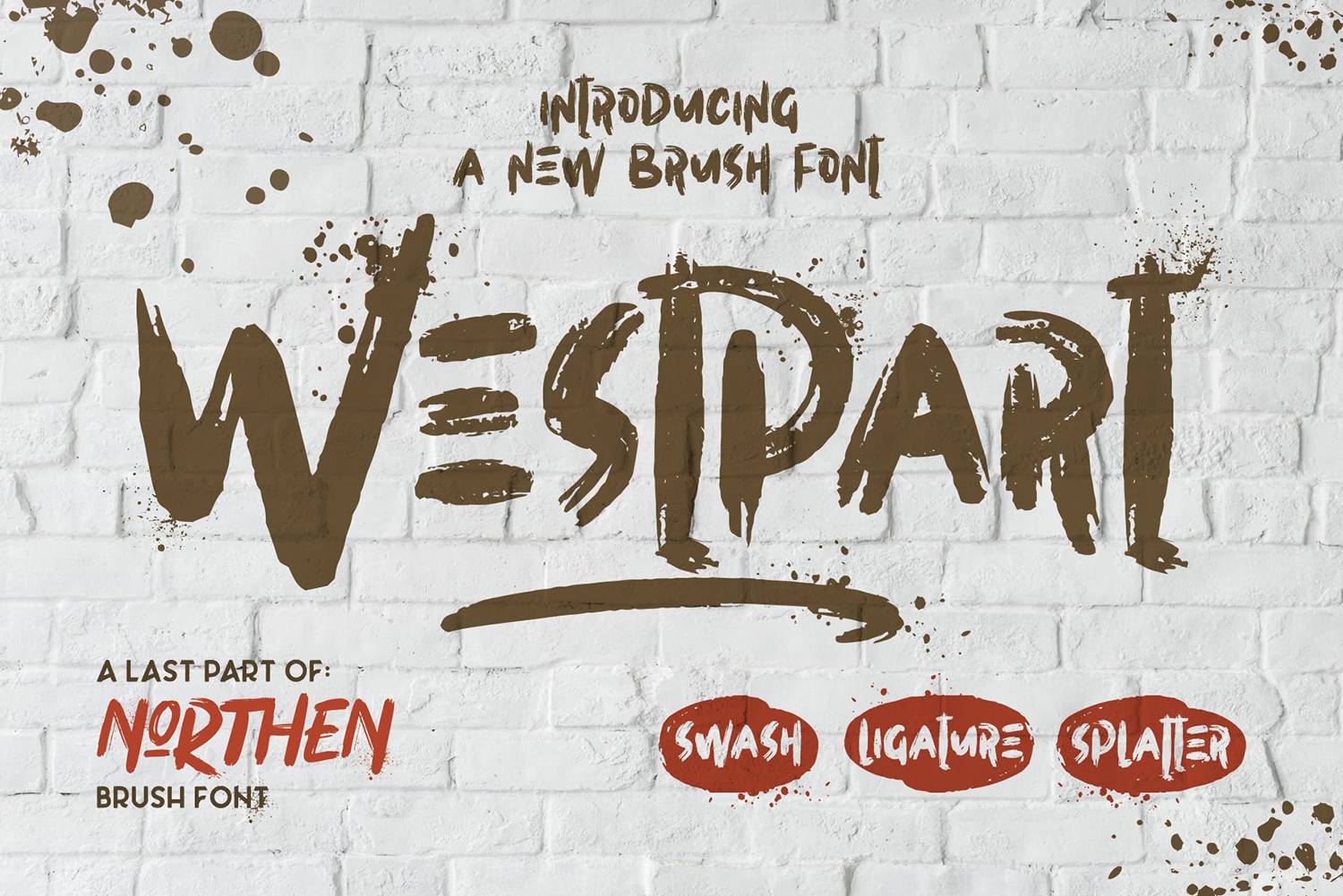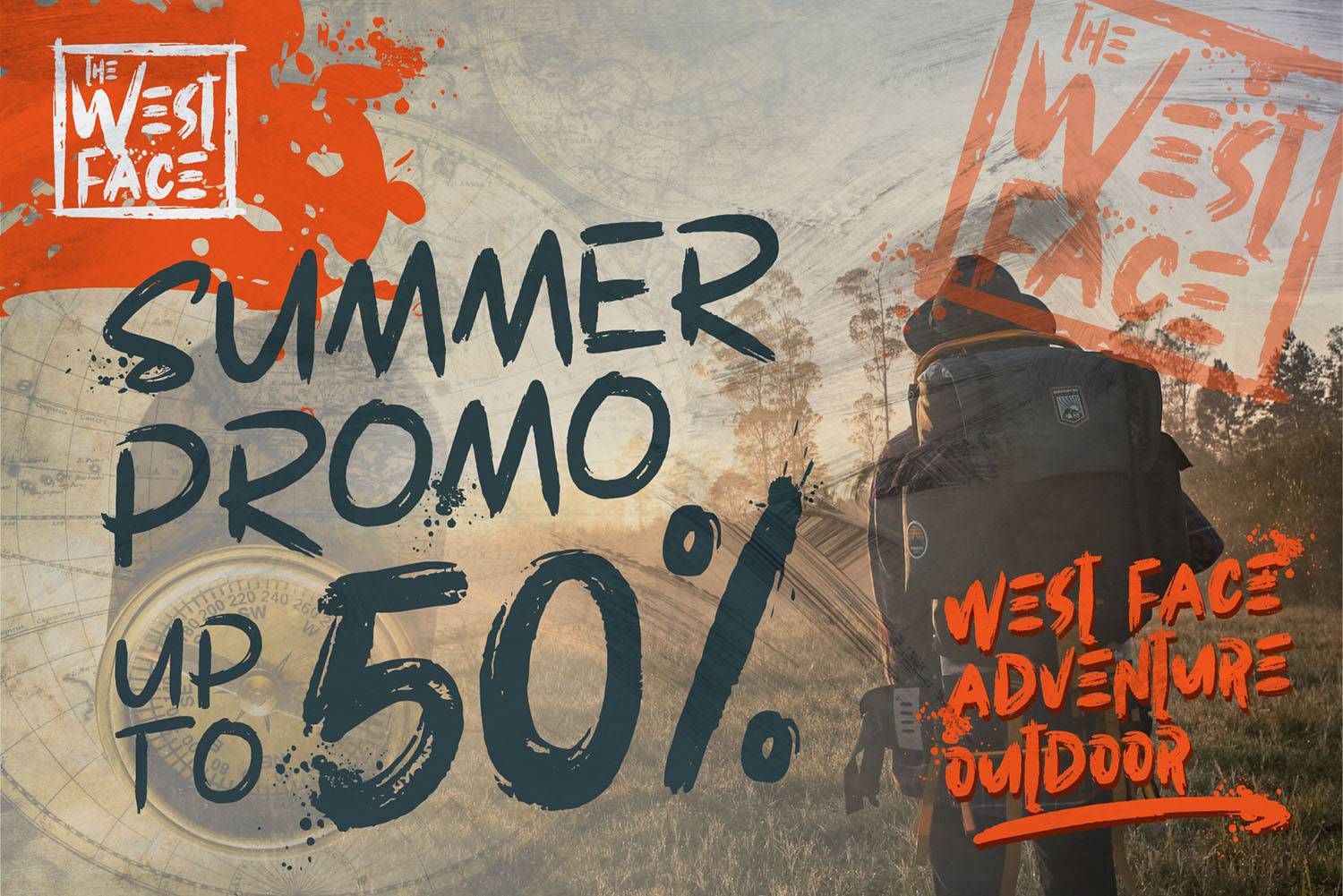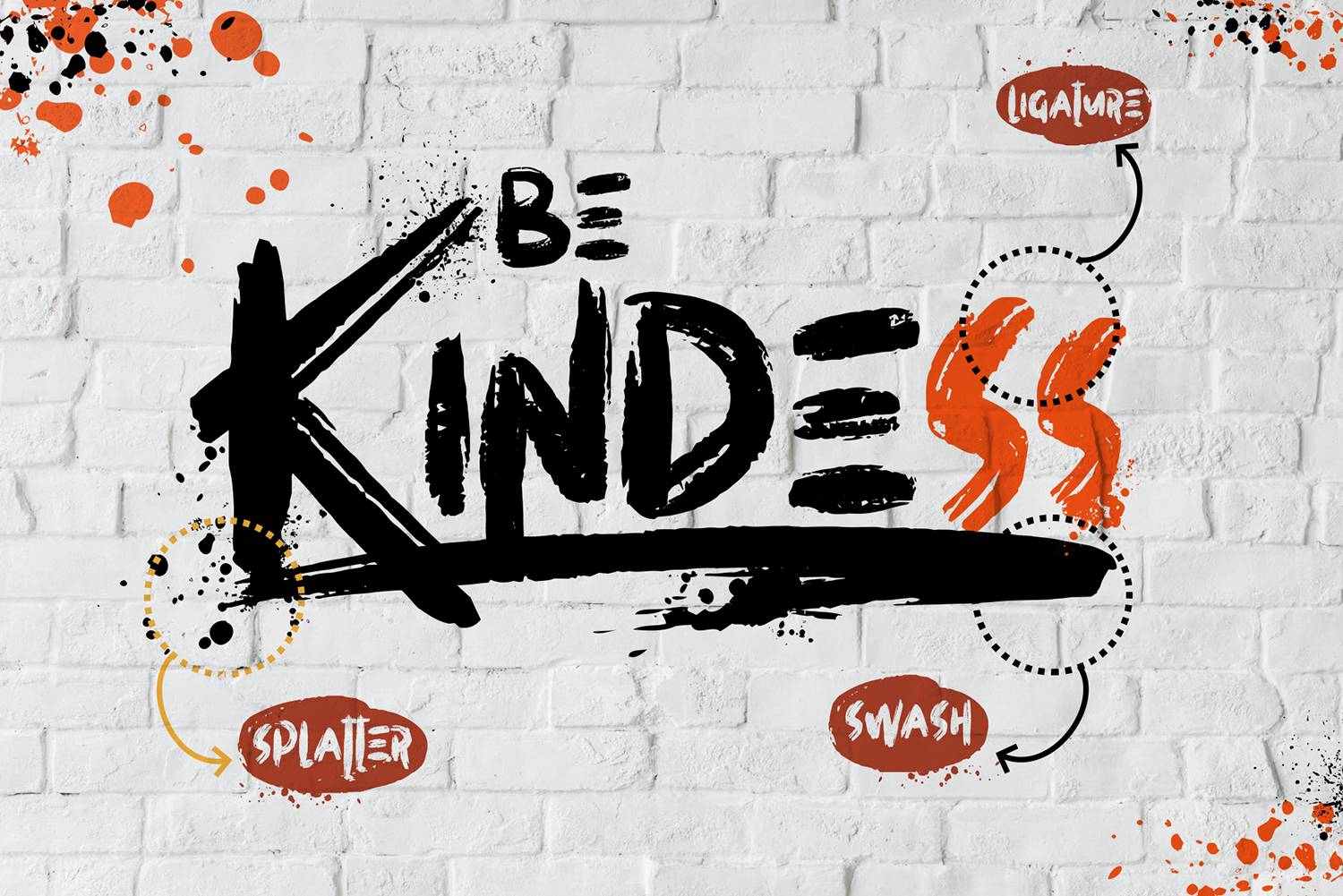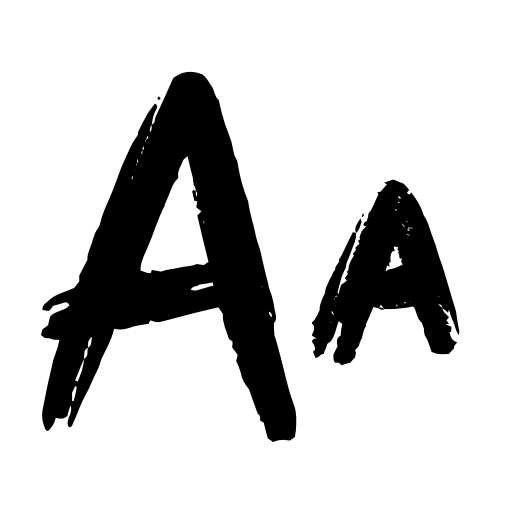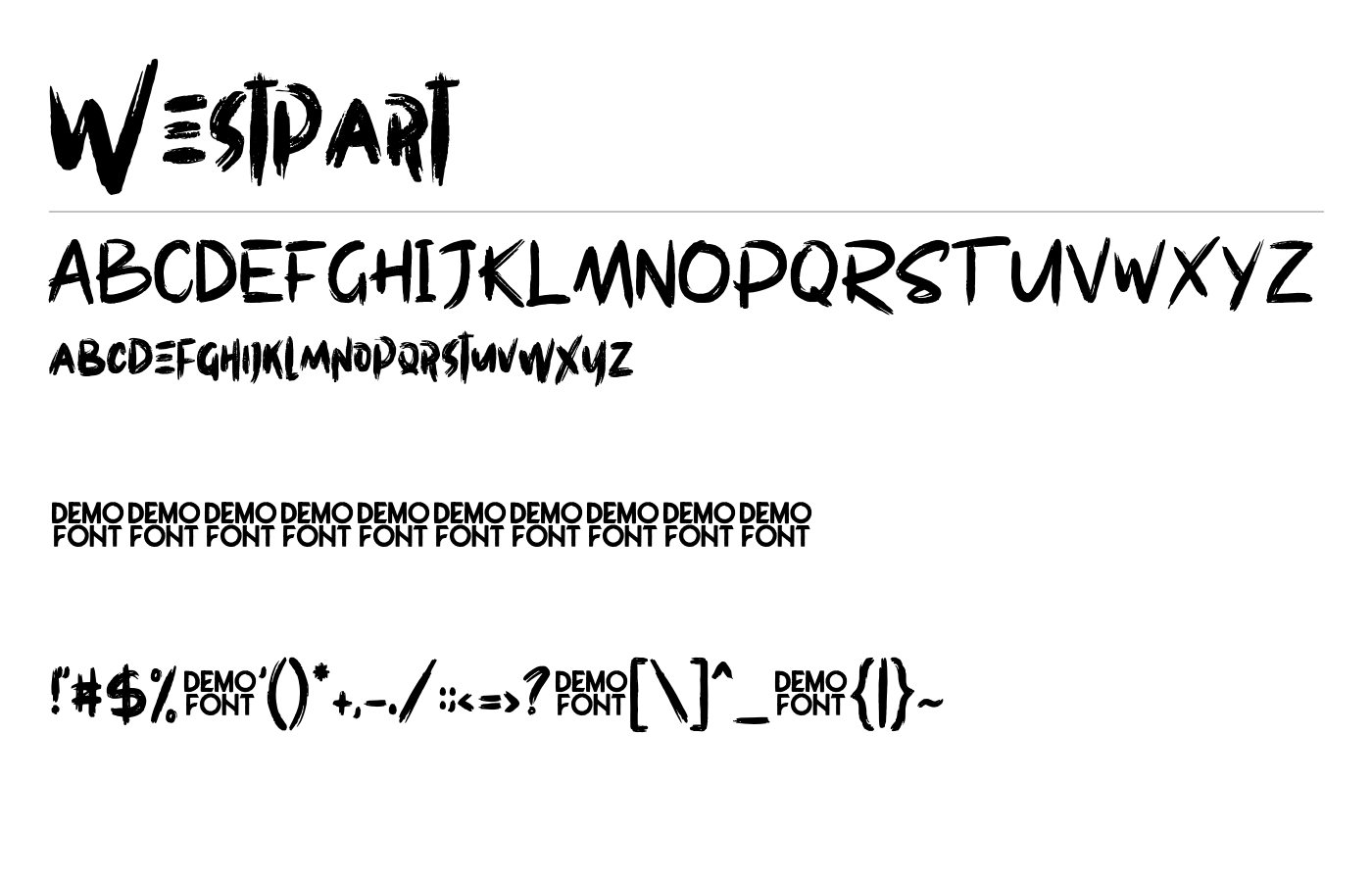
Westpart is a bold, hand-brushed sans serif font with a lively and raw texture that gives it an edgy, artistic feel. Its uneven strokes and slightly irregular letterforms make it ideal for creative, urban, and energetic designs, perfect for posters, logos, and branding that seek a strong, expressive personality. This font works best where a dynamic, handcrafted look is needed to convey originality and a casual, bold attitude.
Westpart Font
About Westpart Font